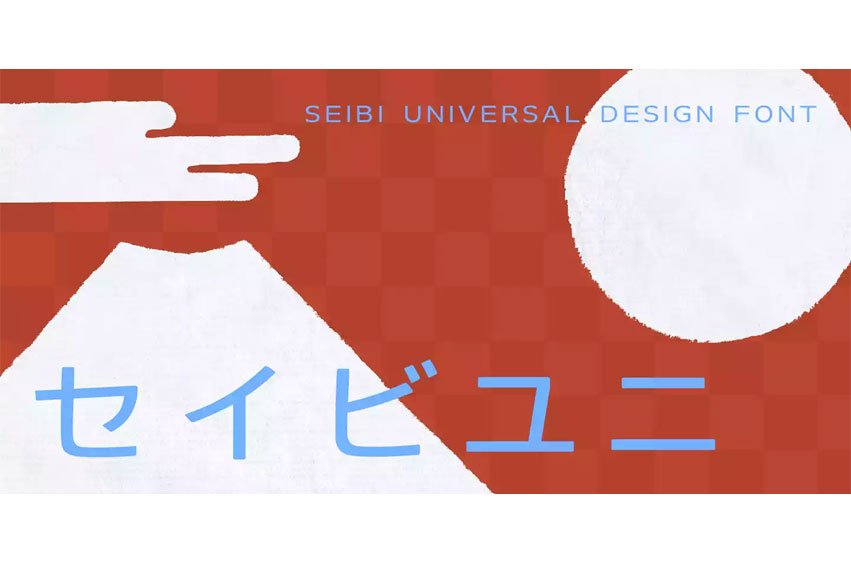
Seibi Yuni Font Originally intended for TV captions, this is a flattened style of font for horizontal typesetting.
Although it can be used in vertical typesetting, this universal-design font maximizes legibility by directing the eye naturally along the line of text.